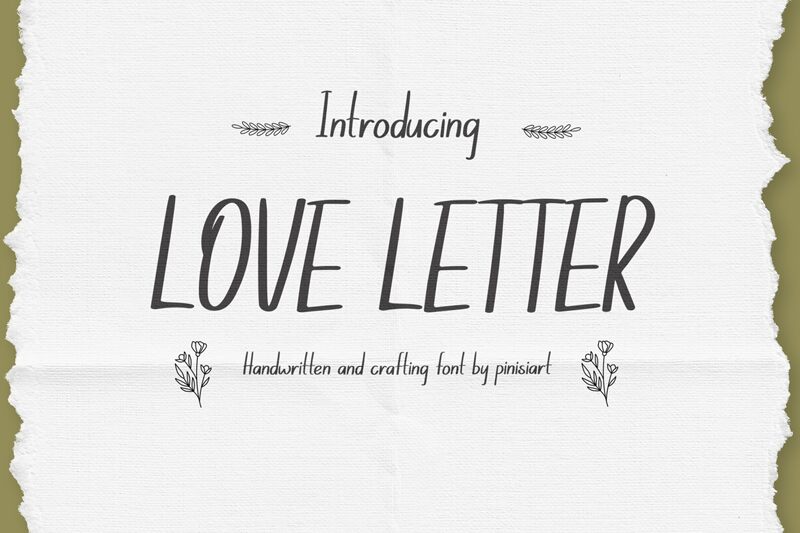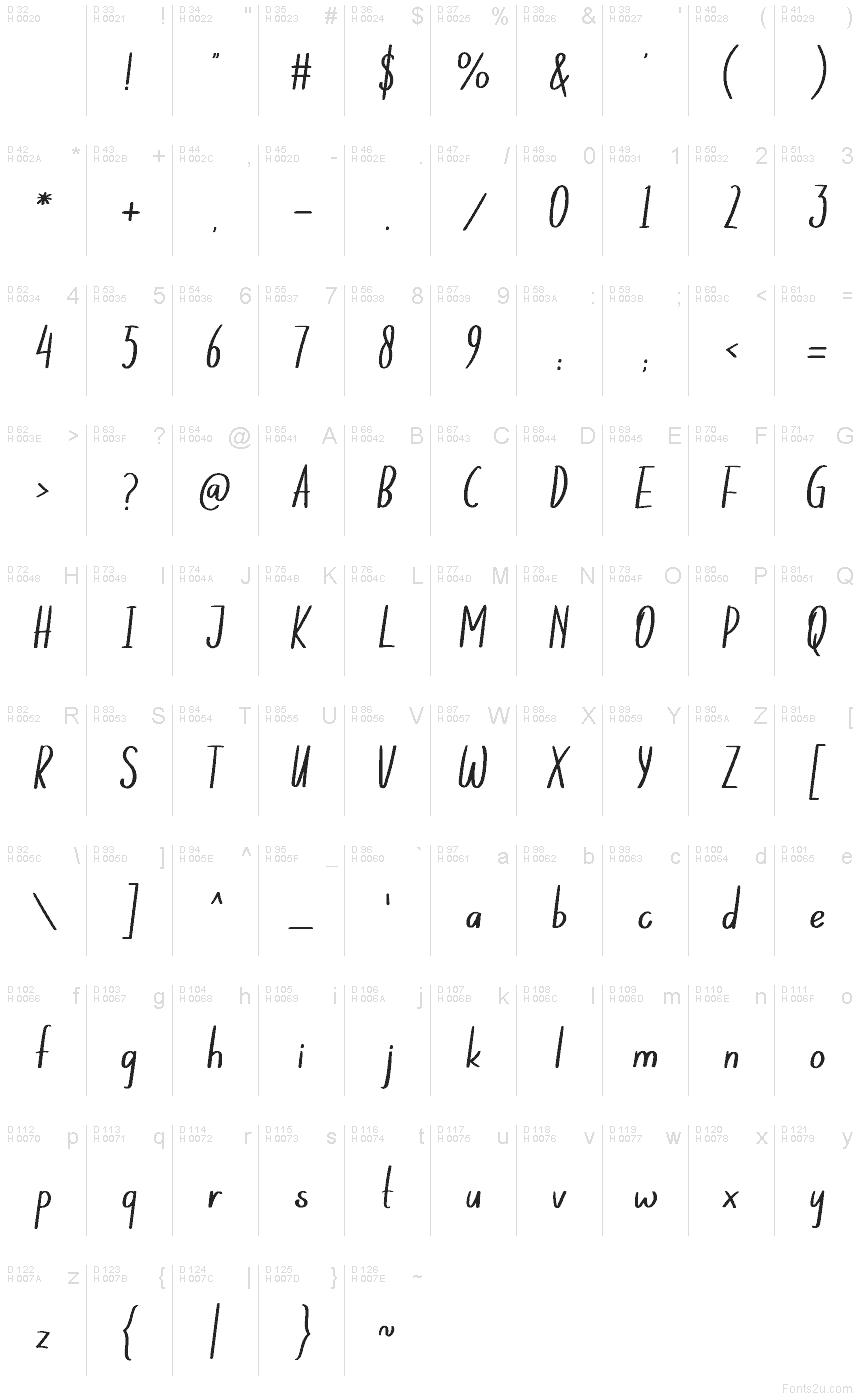
Love Letter
Love Letter font by Pinisiart is a free handwritten font that embodies casual elegance with a humanistic feel. Its flowing movement and relaxed sophistication are complemented by an italic style. The overall look and feel can definitely compete with the best handwritings there are.
Love Letter is great for product packaging, wedding designs, luxury products, invitations, cards, signature designs, headlines, posters, or branding projects. Website templates will also benefit from this fine typeface addition.